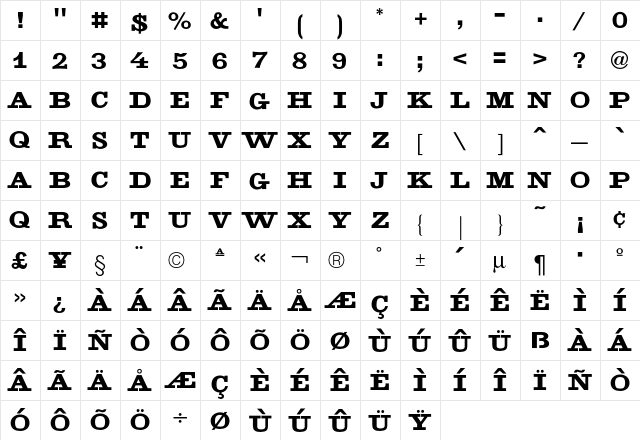
Industrial Press
Design Context for Industrial Typeface
Industrial is a composed and adaptable typeface that performs quietly and consistently across a wide range of design contexts.